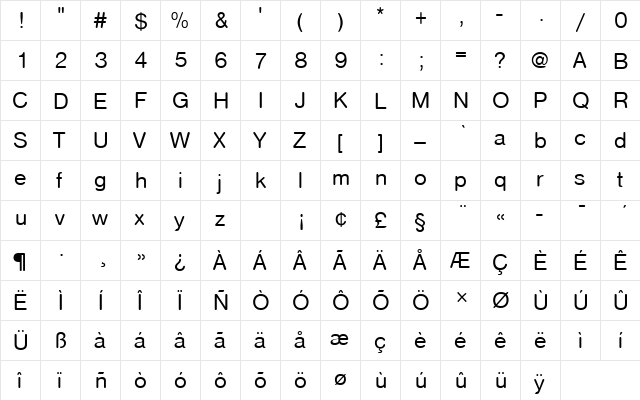
NimbusSanDRegRo1 Regular
NimbusSanDRegRo1 takes a measured approach to typography — its balanced proportions and neutral character make it a reliable workhorse for both digital and print work.